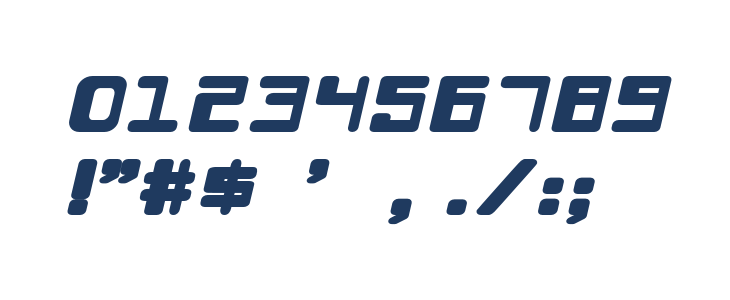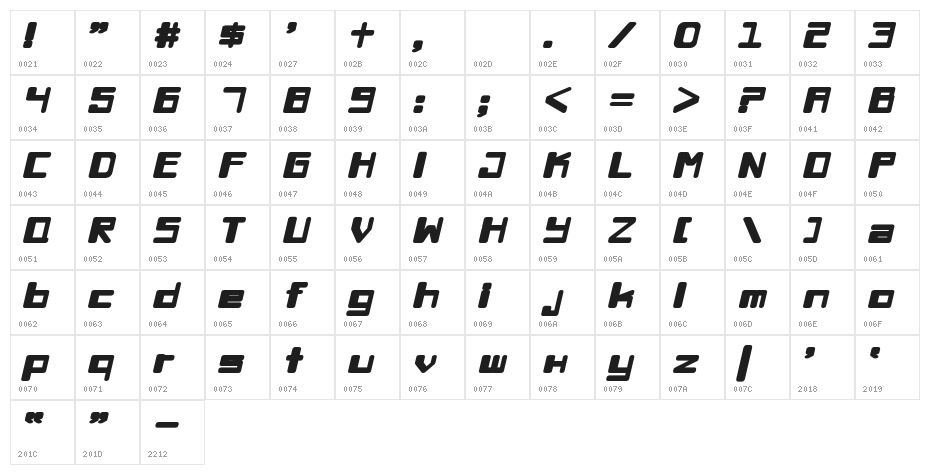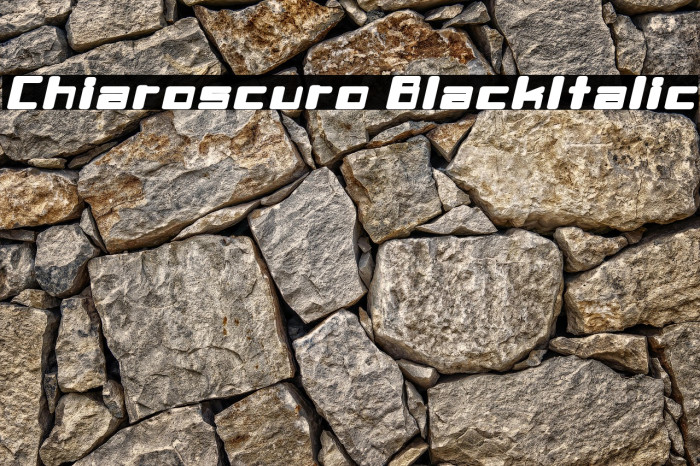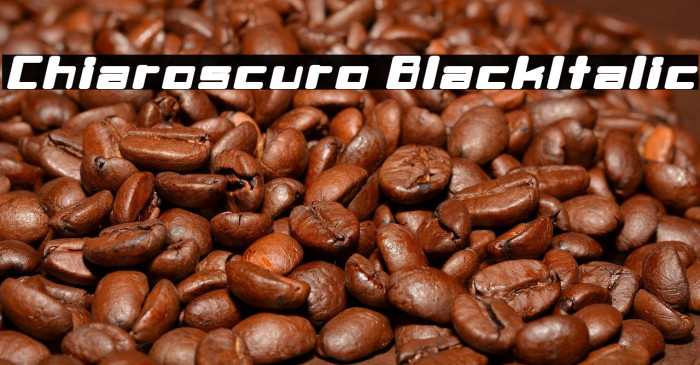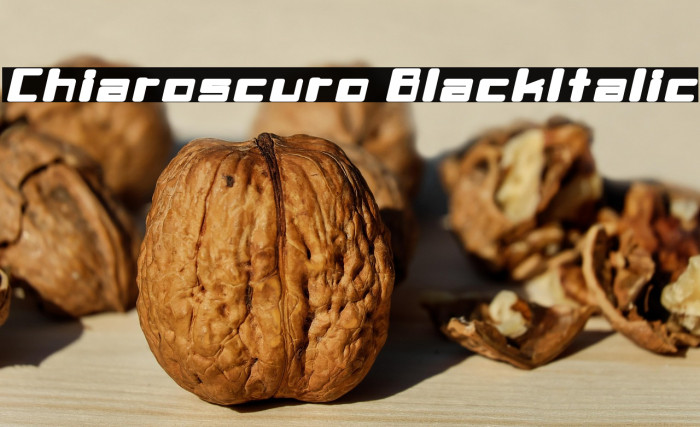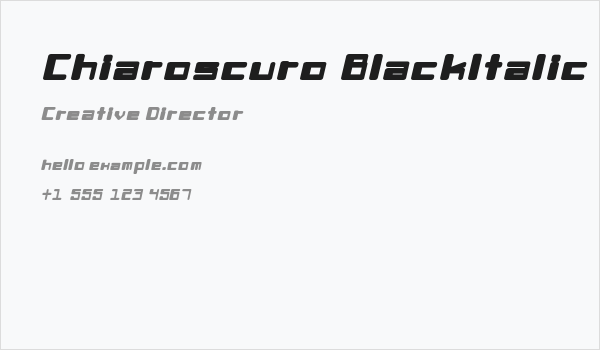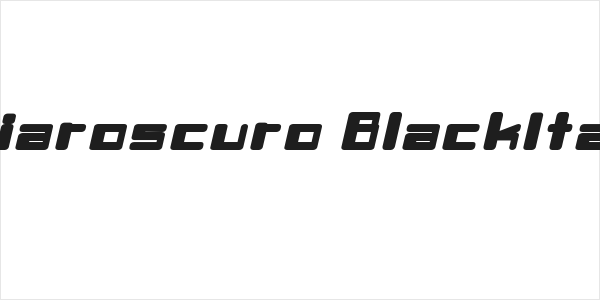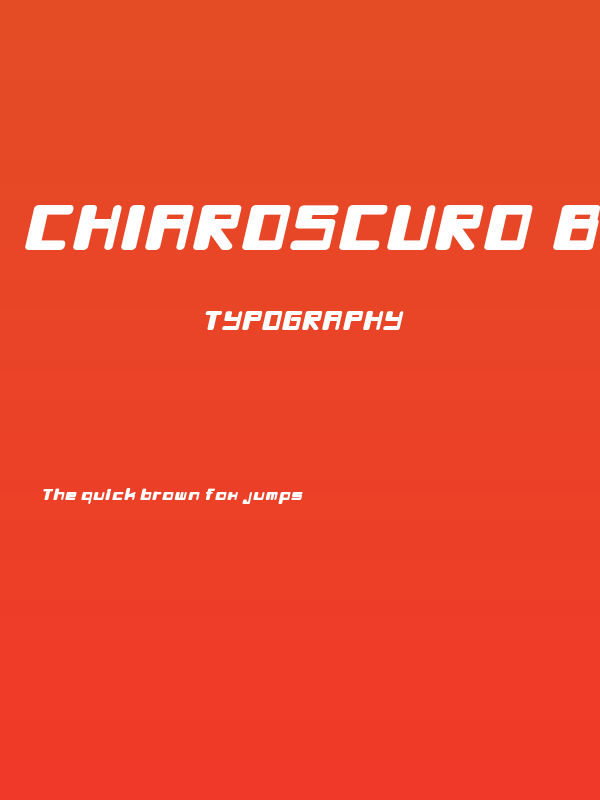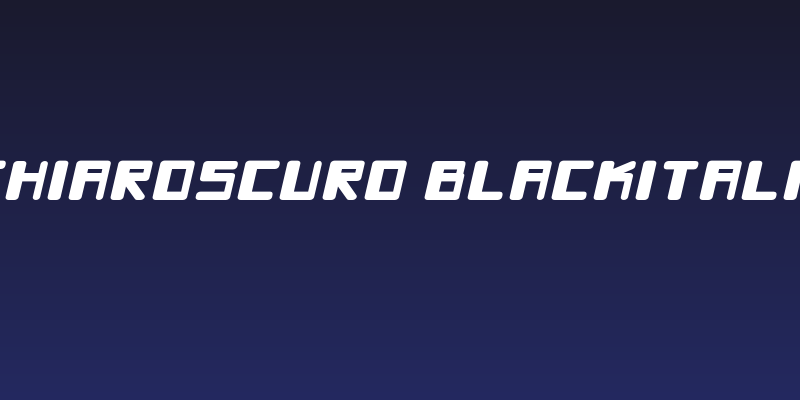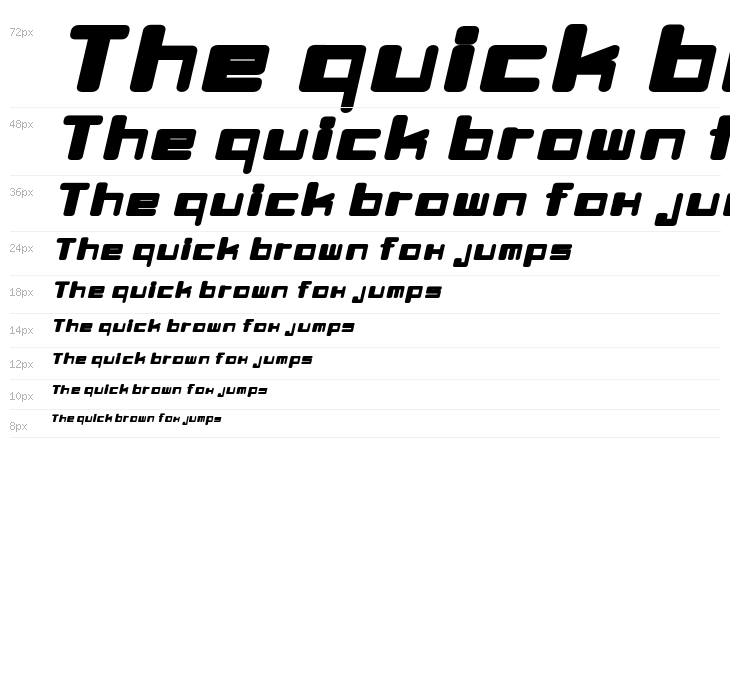
Chiaroscuro-BlackItalic Font
Chiaroscuro-BlackItalic Description
This font features a bold and dynamic style with a modern flair. The characters are slightly italicized, giving them a sense of motion and energy. The strokes are thick and consistent, providing a strong visual impact. The design is geometric with rounded edges, creating a balance between sharpness and softness. The uppercase and lowercase letters maintain a uniform appearance, while the numbers and special characters are crafted to match the overall aesthetic. This font is ideal for projects that require a bold statement and a contemporary look.
| Proposed Projects | Ideal for branding, advertising, headlines, and digital media projects that require a strong and modern aesthetic. |